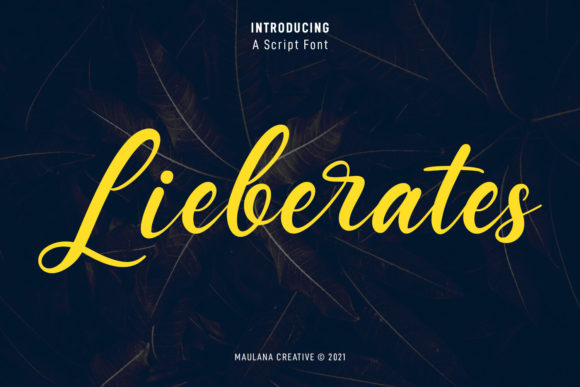
Lieberates Script: A Handwritten Font for Modern Design
Lieberates Script is a handwritten font that blends traditional calligraphy with contemporary design elements. It offers a unique aesthetic that can elevate text in various creative contexts. This font is ideal for designers, marketers, and content creators looking to add a personal touch to their projects.
Understanding Lieberates Script
Lieberates Script is crafted with attention to detail, ensuring that each stroke reflects a natural, fluid motion. The font features elegant curves and subtle variations in thickness, which give it a hand-written feel. Its design is versatile enough to be used in both digital and print media, making it suitable for a wide range of applications.
The font's structure allows for readability while maintaining its artistic flair. It is particularly well-suited for headings, logos, and other design elements where visual impact is important. However, due to its stylized nature, it may not be the best choice for long blocks of text.
Reasons to Consider Lieberates Script
There are several reasons why someone might choose Lieberates Script for their project. First, it adds a sense of elegance and sophistication. Its calligraphic influences make it appealing for branding, invitations, and other premium-looking materials.
Second, Lieberates Script feels contemporary despite its classic roots. It has been designed with modern sensibilities in mind, making it a good fit for current design trends. This balance between tradition and modernity makes it a versatile option for many design scenarios.
Third, the font is easy to integrate into most design software and platforms. Whether you're using Adobe Creative Suite or online tools like Canva, Lieberates Script should work seamlessly with your workflow.
Benefits and Tradeoffs
One of the main benefits of Lieberates Script is its ability to convey personality and emotion through typography. It can help create a more engaging experience for audiences by adding a human touch to otherwise impersonal content.
However, there are some tradeoffs to consider. Because it is a script font, it may not be as readable as sans-serif or serif fonts in certain situations. For instance, it might be challenging to use in small sizes or on low-resolution screens.
Additionally, the fontβs stylized appearance may not align with all brand identities. If your brand requires a more formal or professional look, Lieberates Script might not be the best choice. It is important to evaluate how well the font fits within the overall visual language of your project.
Situations Where Lieberates Script Fits Well
Lieberates Script is an excellent choice for projects that benefit from a personal and artistic touch. Some common use cases include:
- Branding and Logos: The font can add character to logos and brand names, especially in industries such as fashion, lifestyle, and creative services.
- Invitations and Stationery: Its elegant style makes it perfect for wedding invitations, greeting cards, and other stationery items.
- Headings and Titles: When used as a heading, Lieberates Script can draw attention and create a focal point on a page or screen.
- Marketing Materials: Brochures, flyers, and promotional content can benefit from the font's visual appeal, helping to capture the audience's interest.
When Alternatives Might Be Better
While Lieberates Script has many strengths, it may not be the best option in every situation. For example, if your project requires high readability or accessibility, a more straightforward font might be preferable. Sans-serif fonts like Arial or Helvetica are often better suited for body text because they are easier to read at smaller sizes.
Similarly, if you are designing for a more formal or corporate environment, a serif font like Times New Roman or Georgia could be a better fit. These fonts are generally perceived as more professional and are commonly used in academic and business settings.
In addition, if you are working on a multilingual project, it's important to check whether Lieberates Script supports the necessary characters and languages. Some script fonts may have limited language support, which can be a drawback for international projects.
Practical Insights for Decision-Making
Before choosing Lieberates Script, consider the following factors:
- Purpose of Use: What is the primary goal of your project? If you need to communicate information clearly, prioritize readability over style.
- Target Audience: Who will be viewing your content? If your audience values aesthetics and creativity, Lieberates Script could be a great match.
- Design Context: How does the font fit within the overall design? Ensure that it complements other visual elements rather than clashing with them.
- Technical Requirements: Will the font work across different devices and platforms? Test it in various environments to ensure compatibility.
In conclusion, Lieberates Script is a beautifully crafted font that combines the elegance of calligraphy with a modern aesthetic. While it may not be suitable for every project, it can be a powerful tool when used appropriately. By considering its strengths and limitations, you can make an informed choice that aligns with your design goals and objectives.